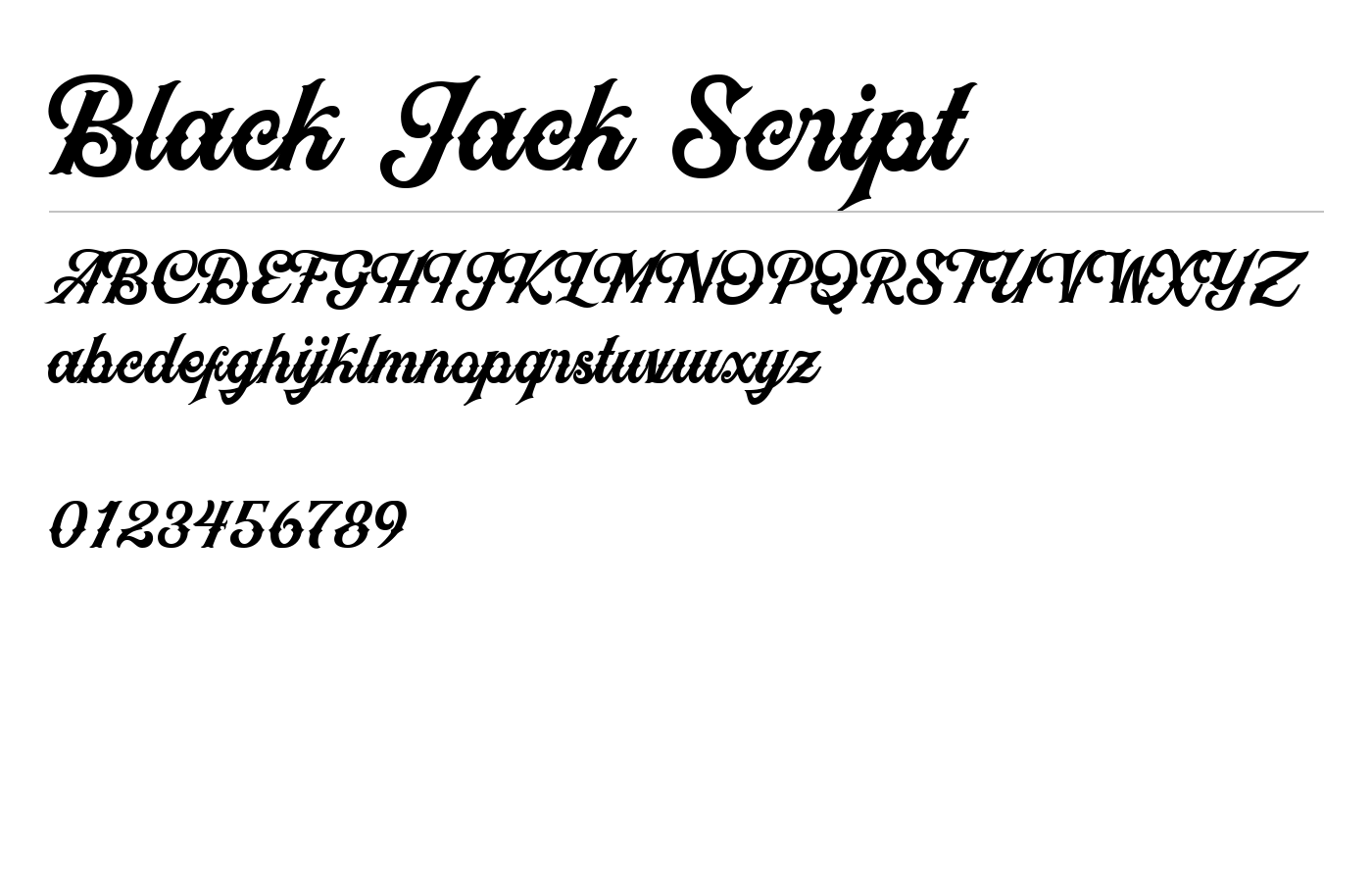
Black Jack Script is a bold, vintage-inspired script font with elegant, flowing letterforms and a strong calligraphic style. Its high contrast strokes and smooth curves convey a classic yet playful personality, making it perfect for branding, logos, and headlines that want to evoke a sense of charm and sophistication. This font works well for fashion, packaging, and editorial designs where a touch of retro elegance is desired.
Black Jack Script Font
About Black Jack Script Font
| Font family | Black Jack Script Font |